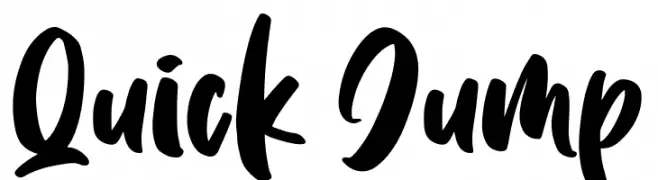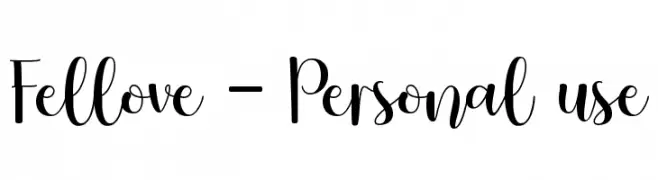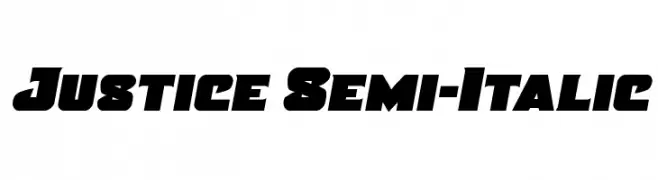
A geometric, abstract font with circular, artistic designs inspired by Suprematism.
A bold, expressive script font with a hand-painted, dynamic style.
A bold, distressed font with a rugged, textured appearance.
Cartoonish, illustrative font made of playful character drawings.
A gothic, medieval-inspired font with bold, thorn-like embellishments.
A bold, distressed font with a gritty, urban style.
A playful, elegant cursive script with a whimsical flair.
A bold, semi-italic font with angular cuts and a dynamic, modern style.